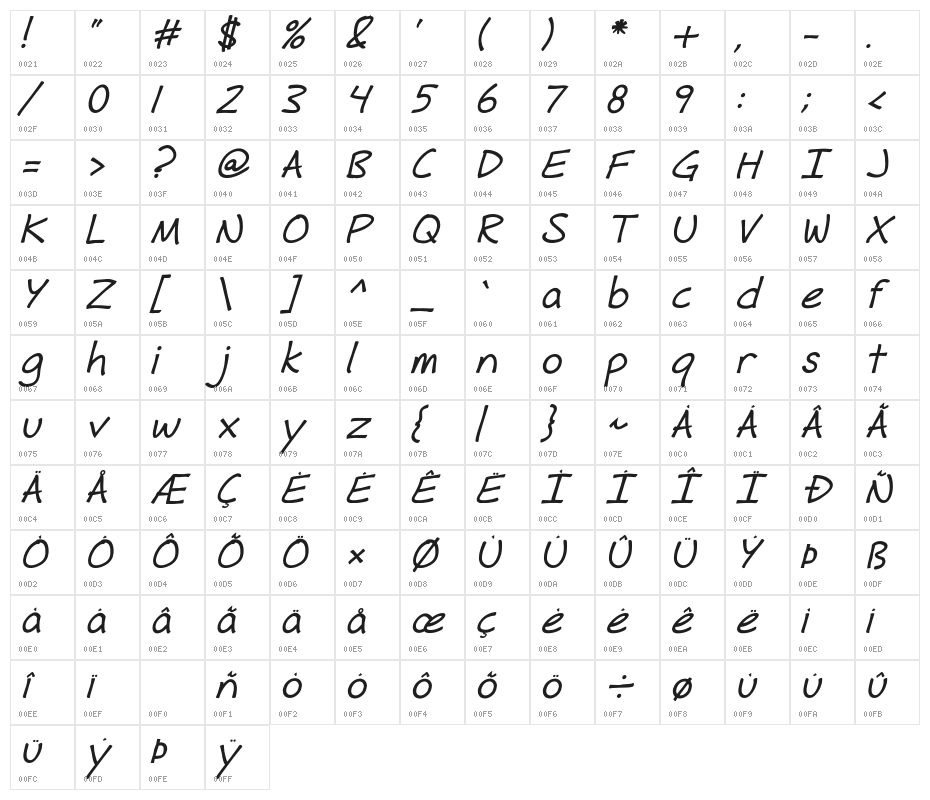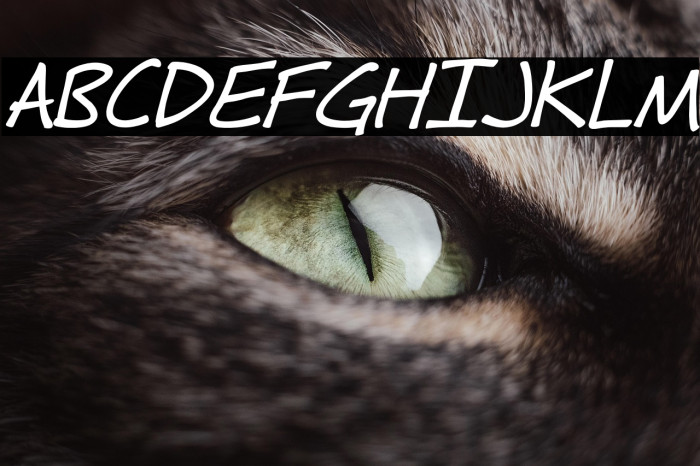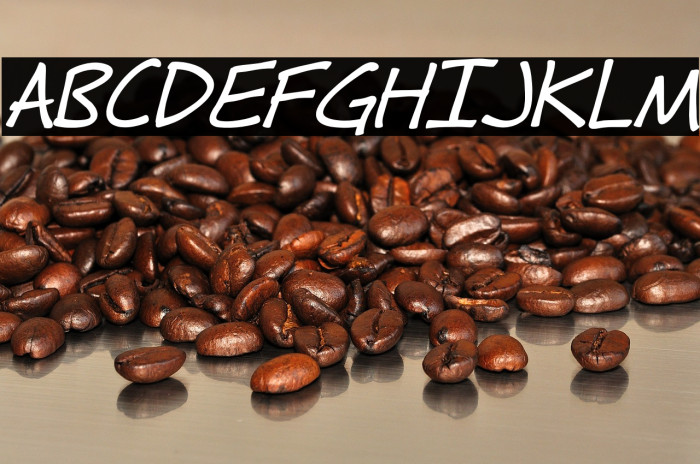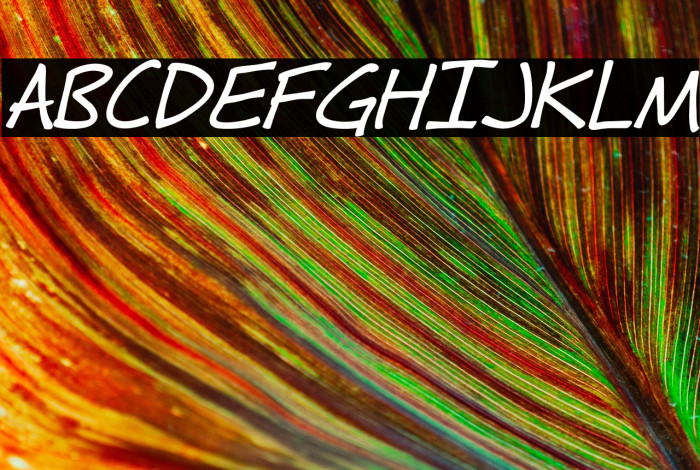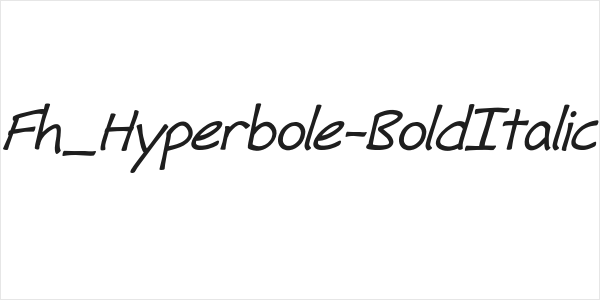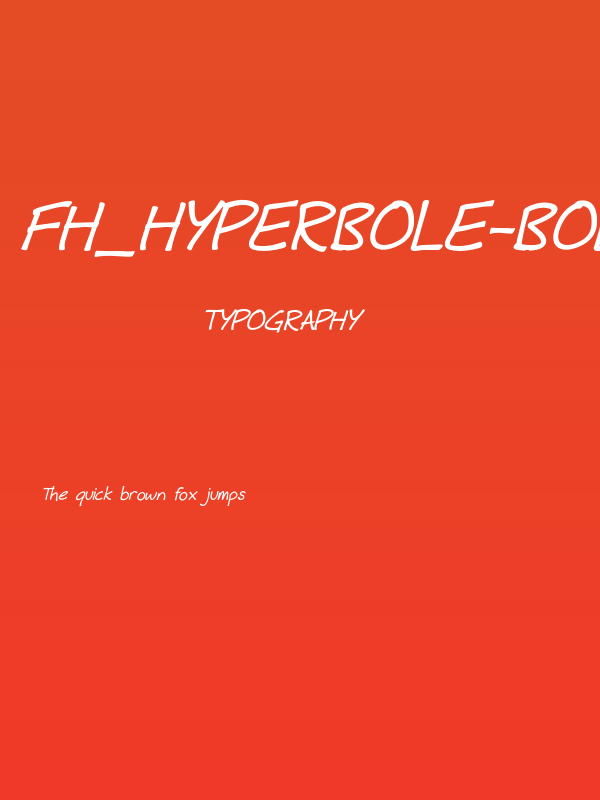
Fh_Hyperbole-BoldItalic Font
Fh_Hyperbole-BoldItalic Description
This font features a bold and italicized style with a handwritten, casual appearance. The letters are slightly slanted, giving a dynamic and energetic feel. The strokes are smooth and consistent, with rounded edges that add a friendly and approachable character. The uppercase and lowercase letters maintain a uniform style, while the numerals and special characters integrate seamlessly, ensuring readability and versatility. The overall design is playful yet clear, making it suitable for various informal applications.
| Proposed Projects | Ideal for greeting cards, playful branding, children's books, and informal invitations. |